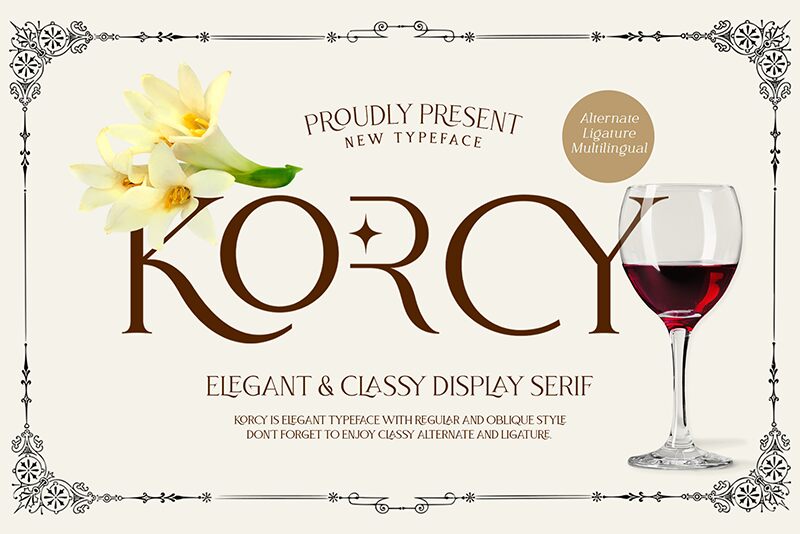
Korcy Oblique
Korcy Oblique font by Wildan Type is a classic serif with a sophisticated and elegant style. Its refined look and well-balanced lines create an aesthetically pleasing appearance that attracts its viewers and leaves a long-lasting impression. Even though the letters are not heavy, they can still stand out no matter the text they spell.
This free serif font will surely be noticed when used in magazines, on invitations, in headlines, on posters, on websites, in printed prints, and even for book covers. Use it to upgrade the elegance of your brand as you insert it into logos or visual identity designs!